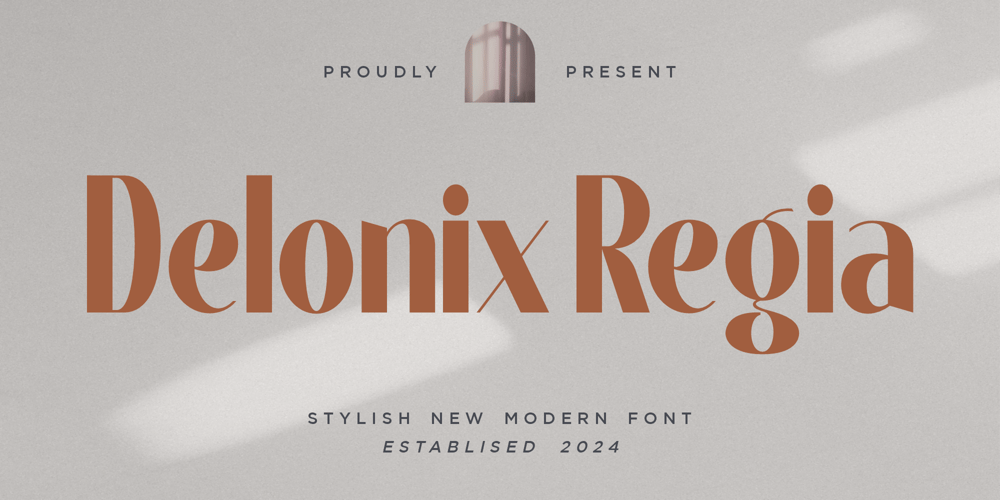
Delonix Regia
Delonix Regia font
Delonix Regia Font Family was designed by Hunaiza Aljahsy and published by HunaizaAljahsy. Delonix Regia contains 1 styles and family package options. Delonix REgia is a bold modern display font with sans serif style. It’s modern and classic font with a unique and deference look . Perfect if you need a dose of fun in your project. Perfect for editorial projects, Logo design, web font, clothing branding, product packaging, magazine headers, or simply as a stylish text overlay to any background image.